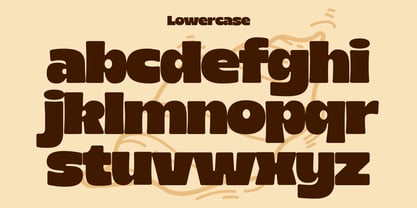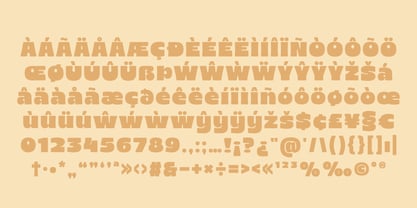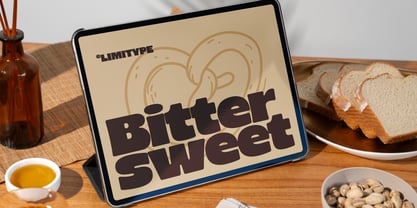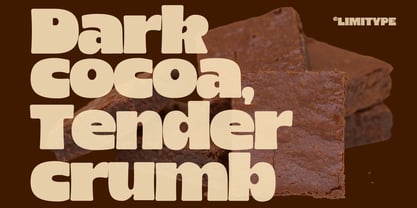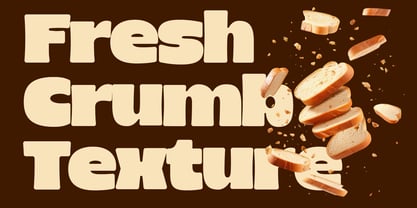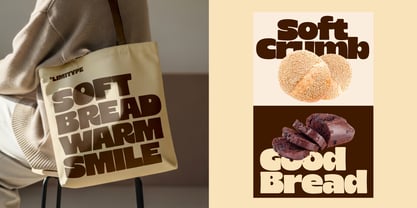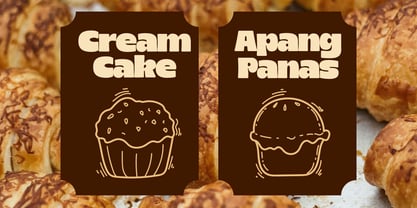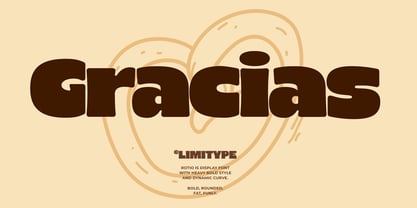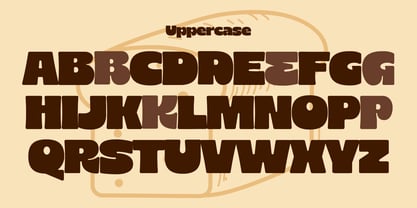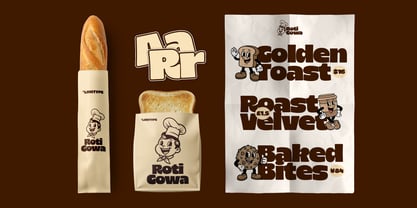
Rotio
por limitype
La familia tipográfica Rotio fue diseñada por Muhammad Muammar, Furqan Sudirman y publicada por limitype. Rotio contiene 1 estilos. Más información sobre esta familia
Rotio is a bold display font featuring soft, rounded, and expressive letterforms, delivering a playful, friendly, and energetic impression. Its smooth character with rounded edges creates a cheerful, warm, and approachable appearance without sacrificing visual strength. This font is ideal for headlines, posters, covers, branding, packaging, and creative designs that aim to look fun, bold, and full of personality. Rotio available with: Uppercase Lowercase Number Symbol Multilingual